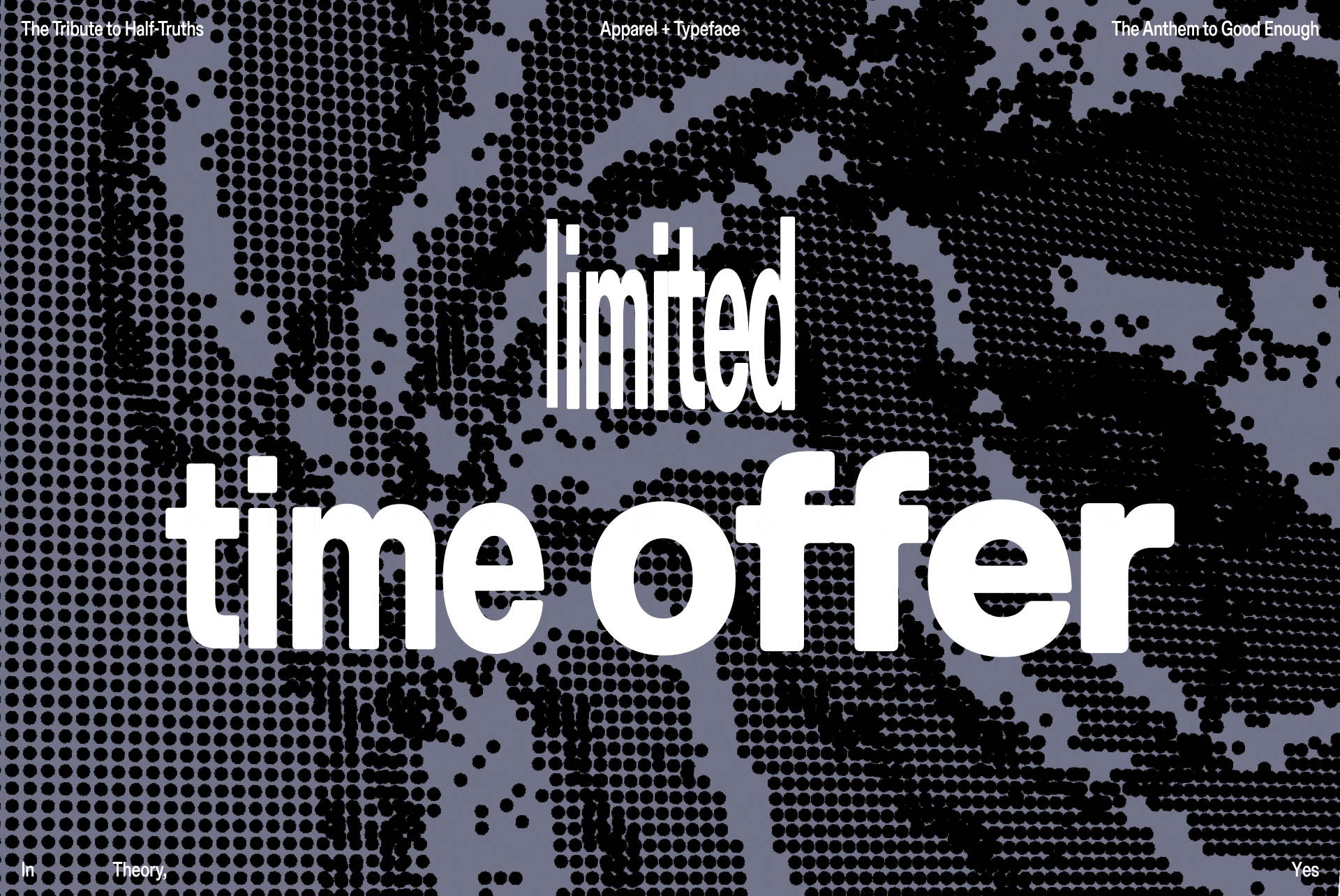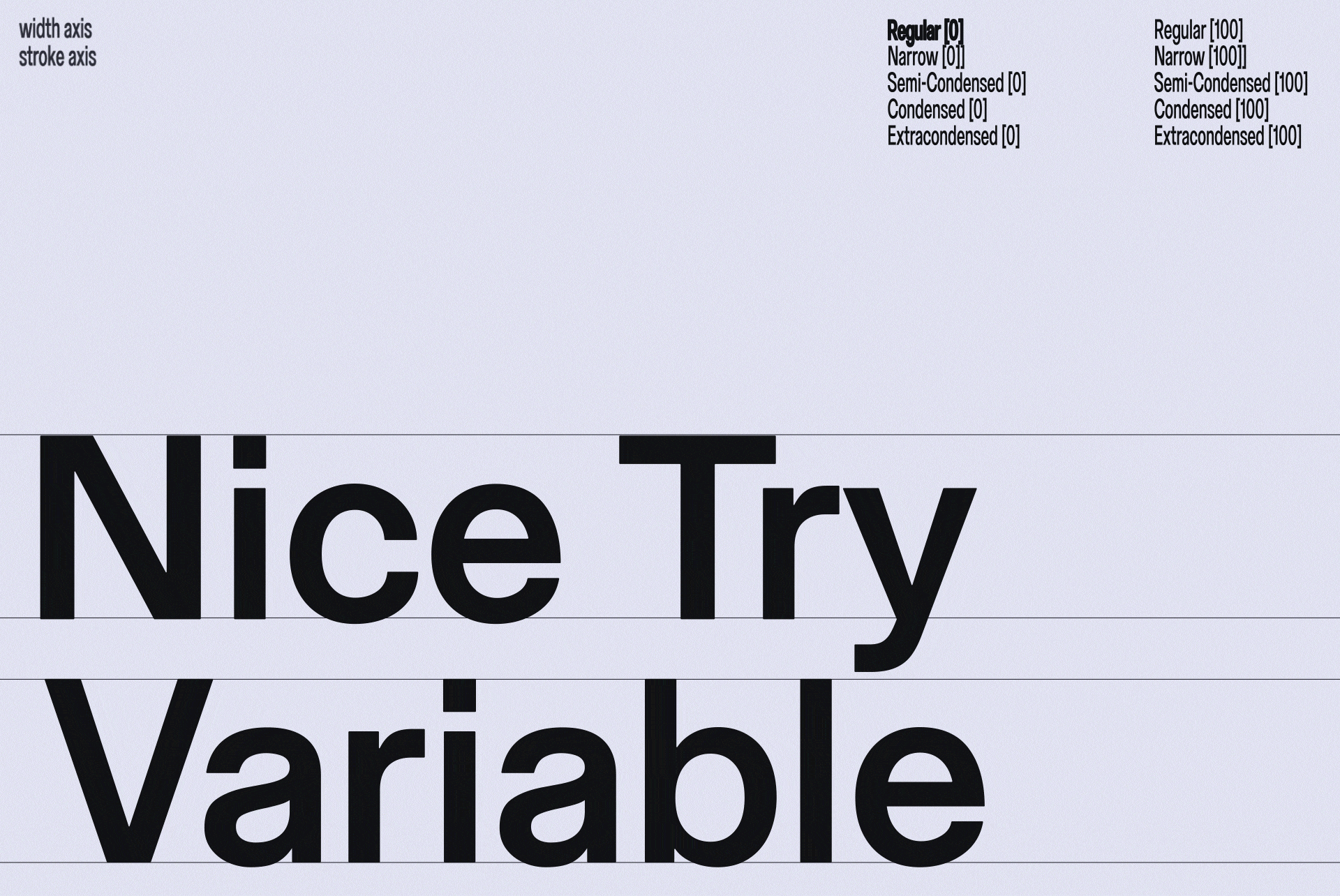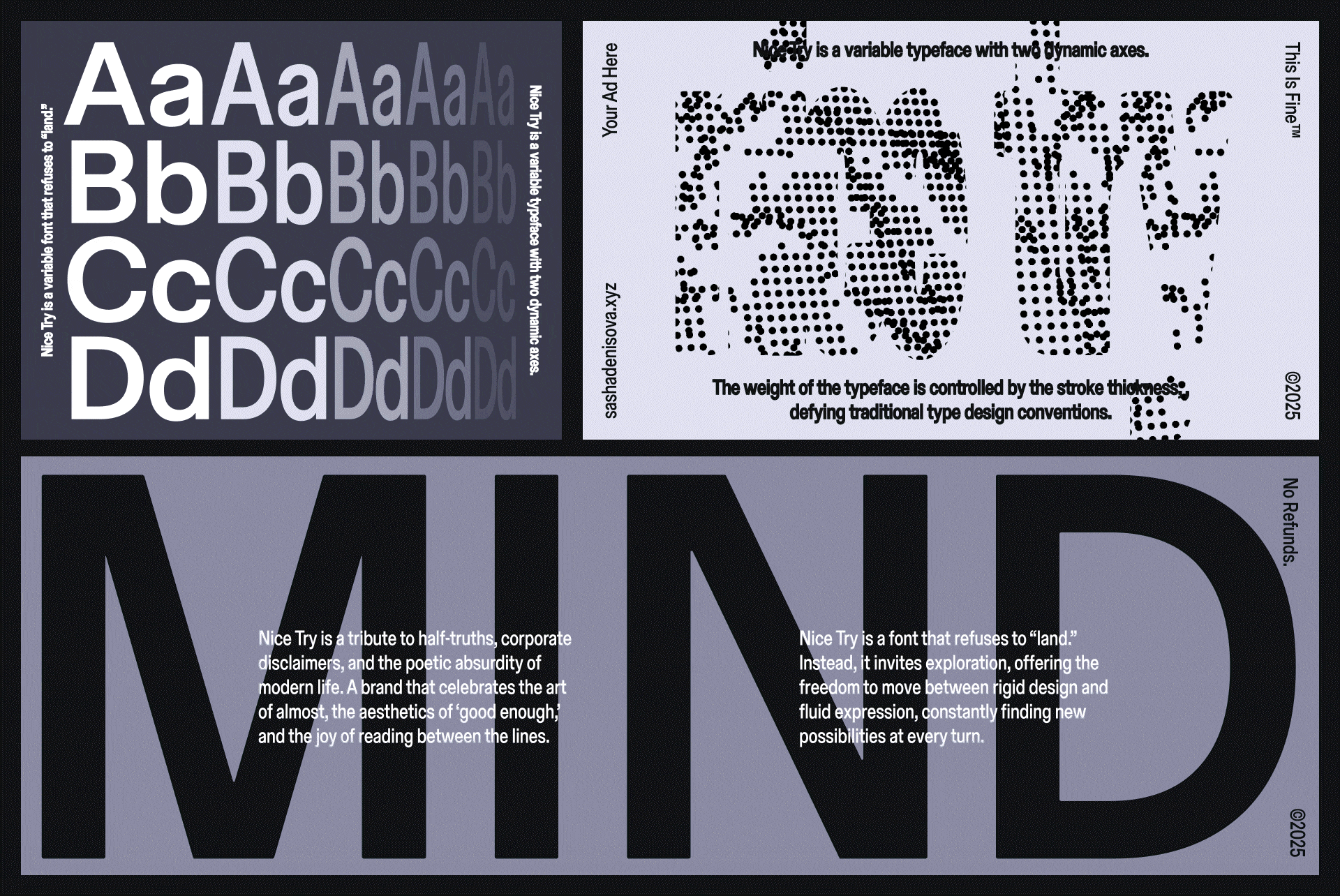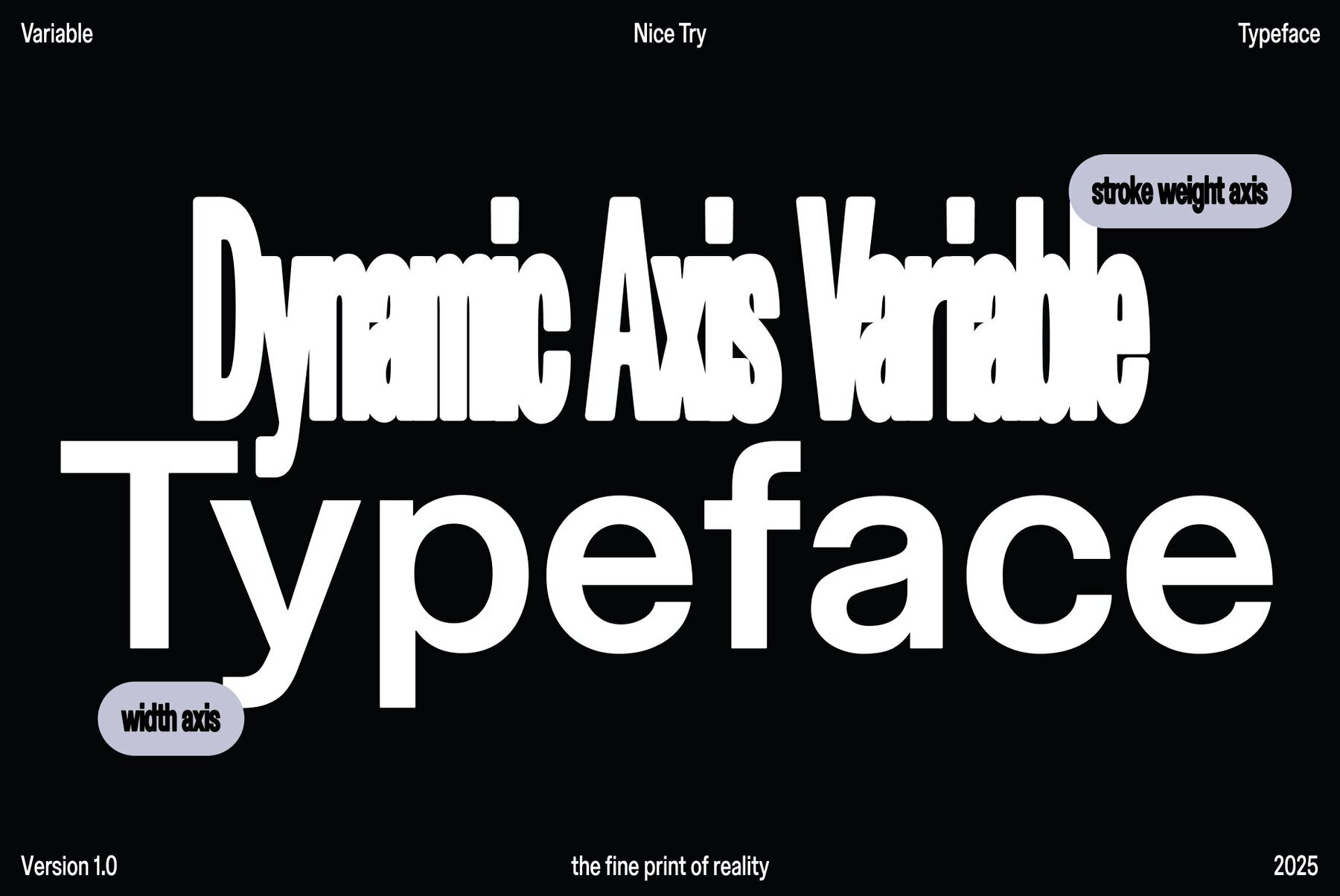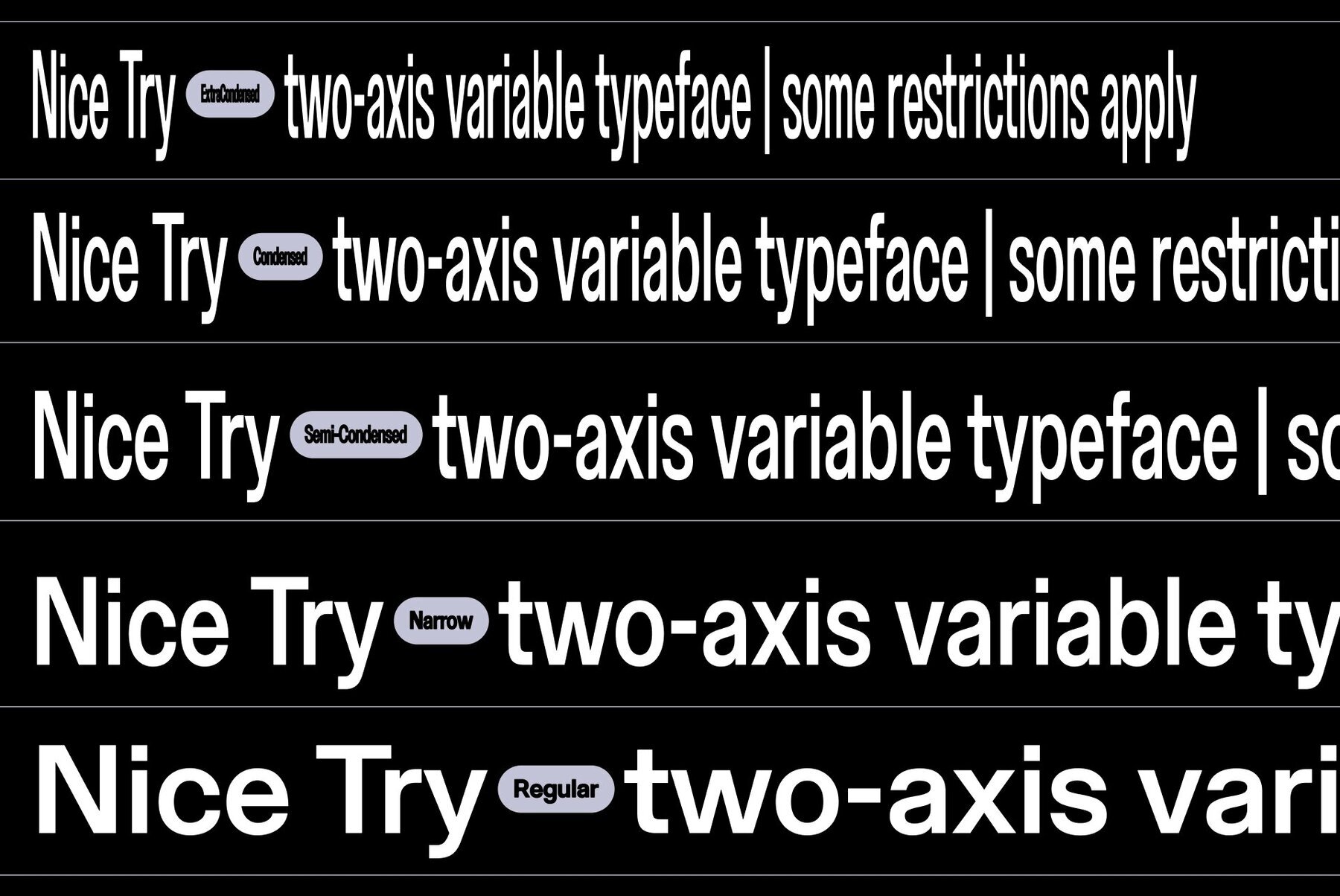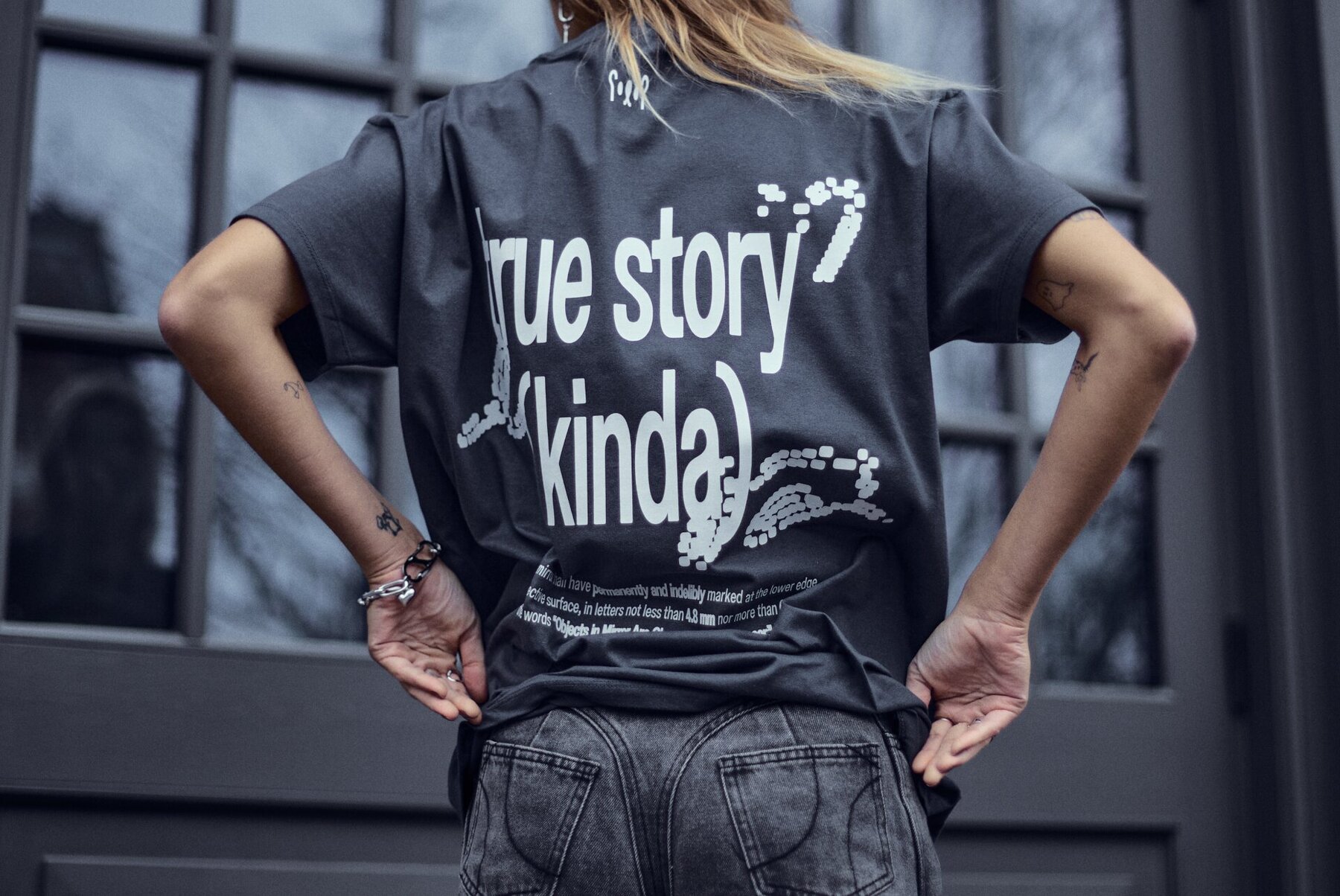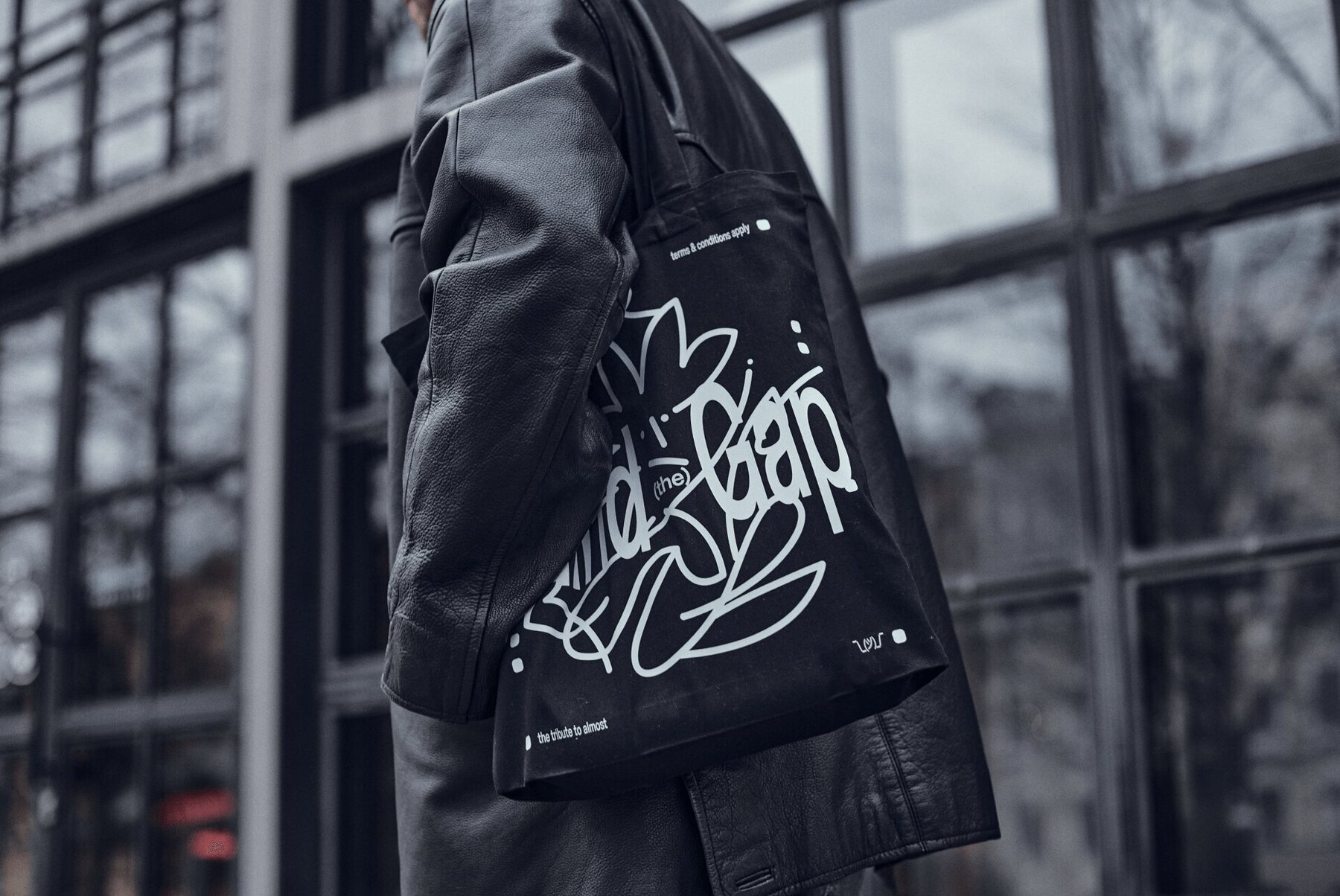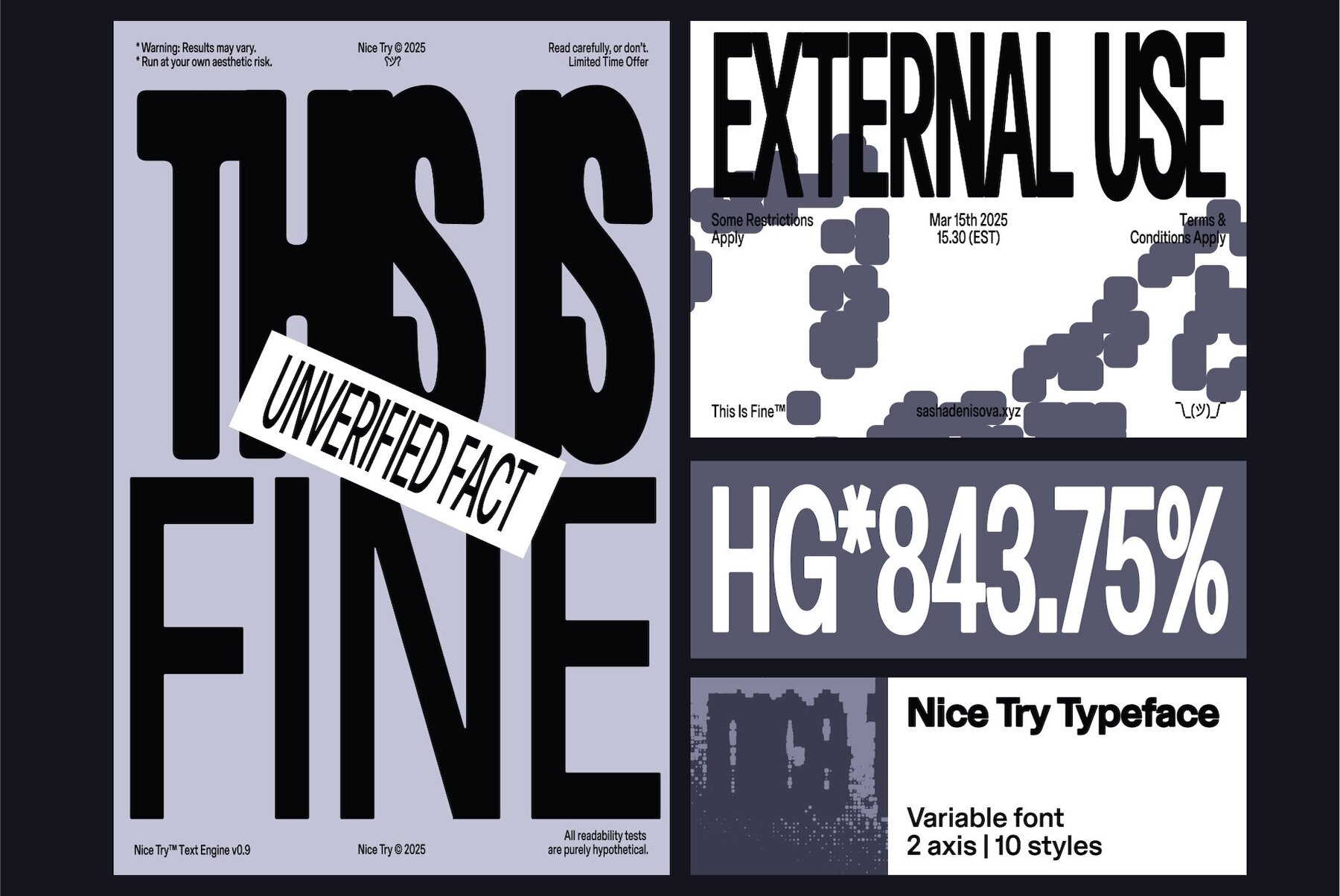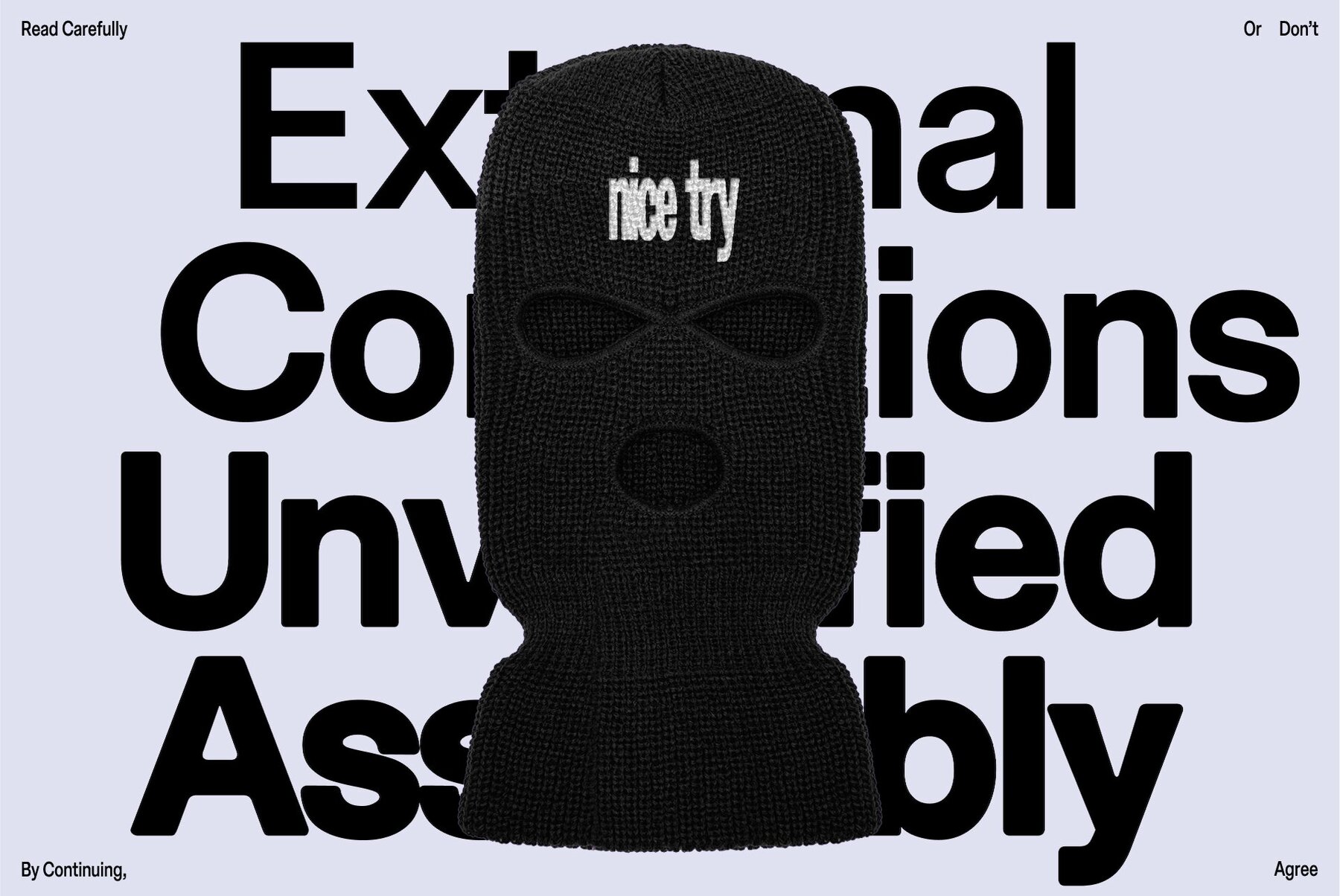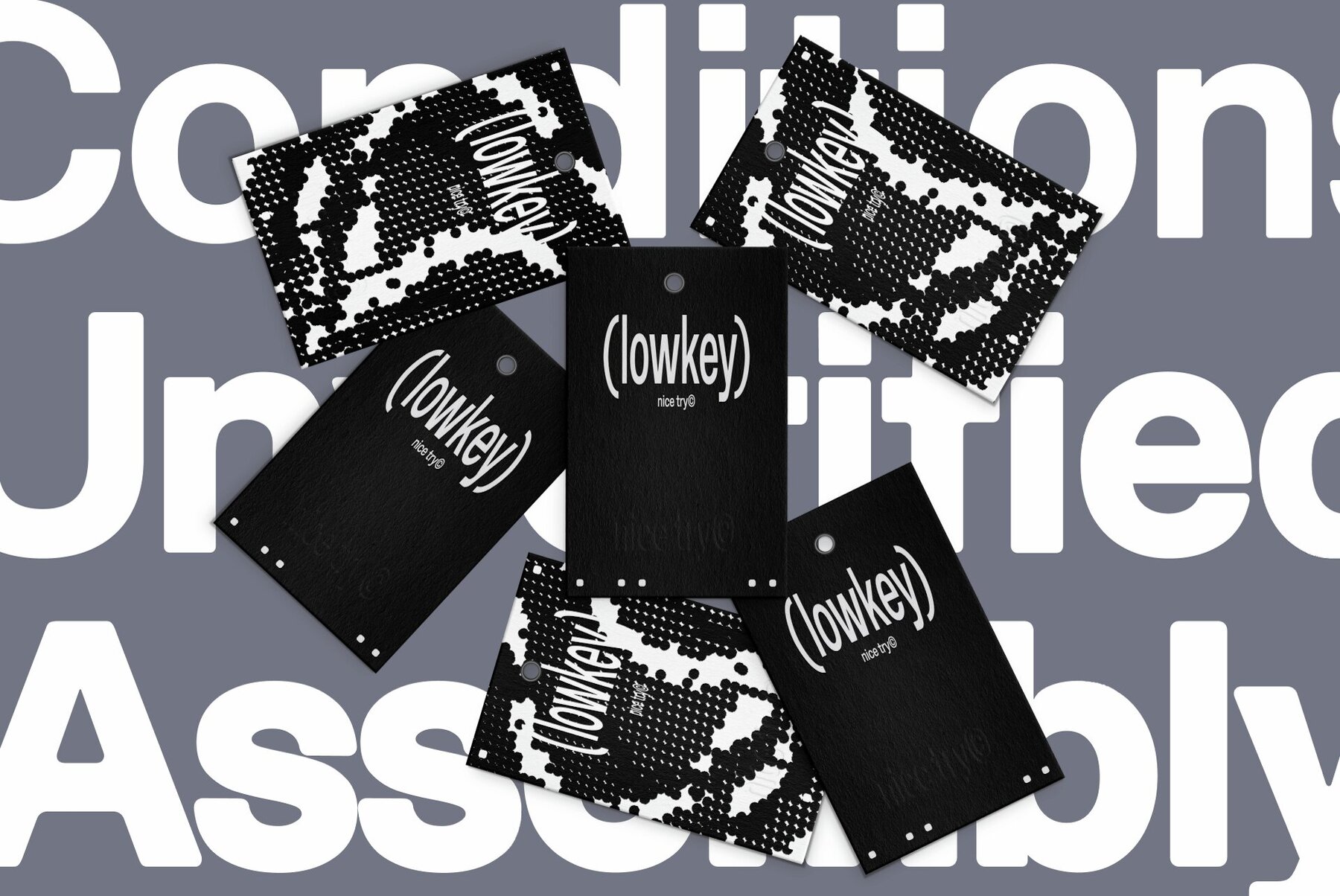
Nice Try Font
Nice Try is a variable typeface with two dynamic axes. It ranges from tight, condensed forms to open, perfectly readable structures. The weight of the typeface is controlled by the stroke thickness, defying traditional type design conventions. The typeface is never static, resisting any attempt to pin it to a single form. It constantly evolves, shifting between contrasting looks with ease. Nice Try is the embodiment of fluidity, making it the perfect choice for projects that demand both grounded structure and a sense of movement, always teetering on the edge of something unexpected. Nice Try is a font that refuses to “land.” Instead, it invites exploration, offering the freedom to move between rigid design and fluid expression, constantly finding new possibilities at every turn. Supporting the following languages: English, German, French, Spanish, Portuguese, Italian, Dutch, Catalan, Galician, Occitan, Luxembourgish, Polish, Czech, Slovak, Slovenian, Croatian, Bosnian, Serbian (Latin), Montenegrin (Latin), Upper and Lower Sorbian, Swedish, Norwegian, Danish, Icelandic, Faroese, Finnish, Turkish, Romanian, Albanian, Welsh, Scottish Gaelic, Irish, Esperanto.